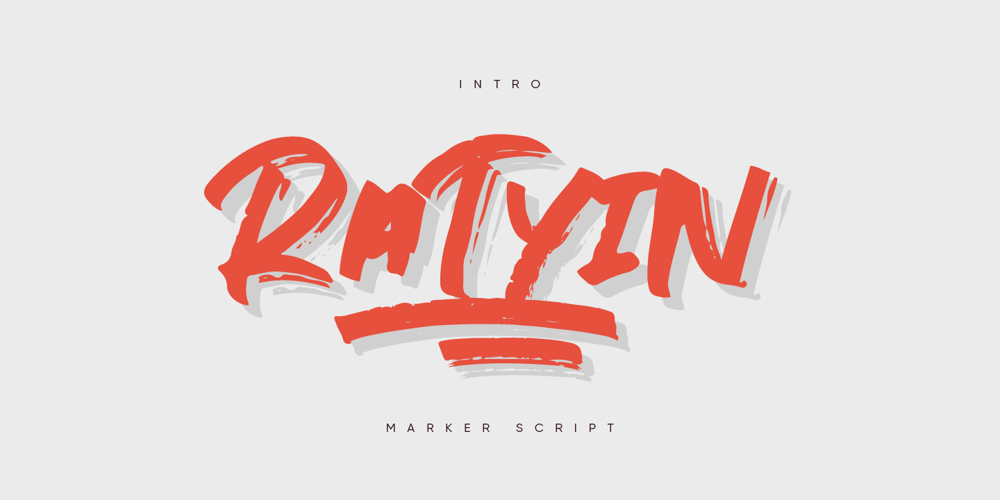
Ratyin Font Family was designed by Anton Didenko and published by Kavoon. Ratyin contains 2 styles and family package options. Oxygen Script made with a transparent line texture. Suitable for use in title design such as invitations, signboards, book titles, stationery designs, quotes, branding, logos, greeting cards, packaging designs, posters, and more.Files Include: Punctuation & numbers Splashes Splatters Alternate letters Uppercase letters Multi Language Supported Languages – French, Spanish, English, Catalan, Galician, Basque, Portuguese, Italian, Albanian, Afrikaans, Dutch, German, Danish, Swedish, Norwegian, Finnish, Faroese, Icelandic, Irish and Scottish.